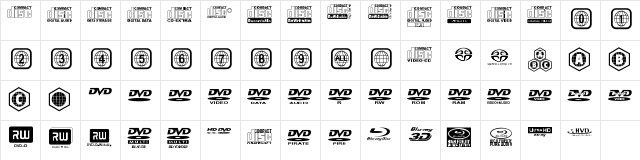
Optical Disc Symbols RJB Regular
Optical Disc Symbols RJB takes a measured approach to typography — its balanced proportions and neutral character make it a reliable workhorse for both digital and print work.